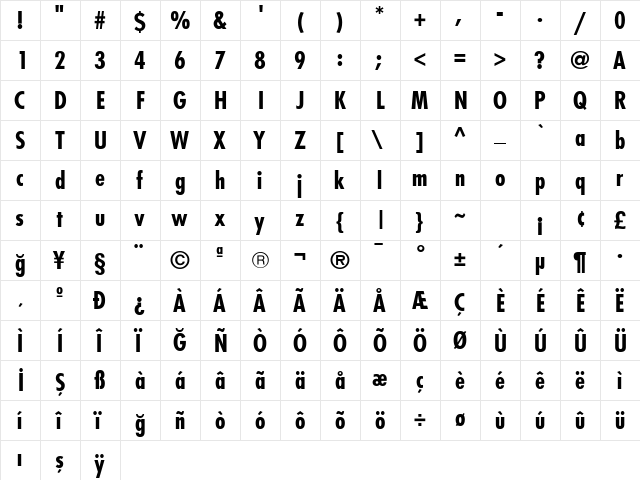
FuturaCondensedBold Regular Font Preview
Design Context for FuturaCondensedBold Typeface
FuturaCondensedBold channels digital-age aesthetics through its sharp, structured letterforms — ideal for brands that want to signal innovation. The heavy weight commands attention and anchors typographic hierarchies. The condensed width makes it efficient for tight spaces without sacrificing legibility.
Pro Tip: Try FuturaCondensedBold with generous letter-spacing in UI labels and navigation — the geometric forms benefit from room to breathe.